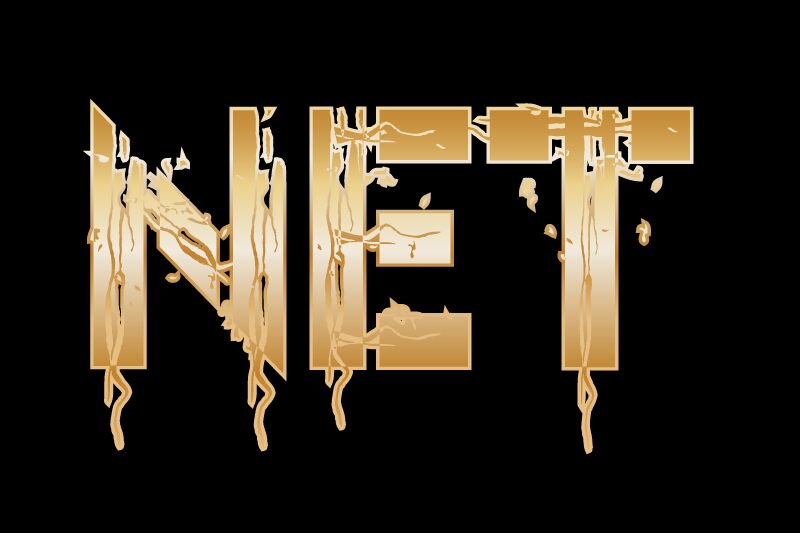
Net Bold
Net Bold font by Design Vector10 is a distorted display font with a surprising gothic and edgy look. This fragmented combination of the grunge, aggressive, and distressed look makes for an eye-catching scene, drawing the immediate attention of everyone who sees it. Bring some boldness to your next font selection with this cool resource.
Take advantage of Net Bold in your album covers, posters, book and movie titles (horror or fantasy), urban designs, street-style visual identities, social media posts, banners or headers on blogs or websites about sports, politics campaigns (online & offline), magazines titles & content design emblems among others.